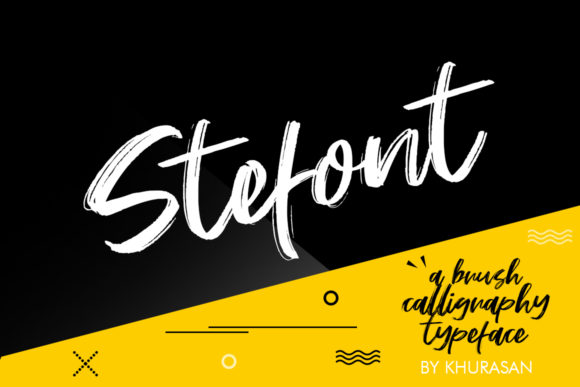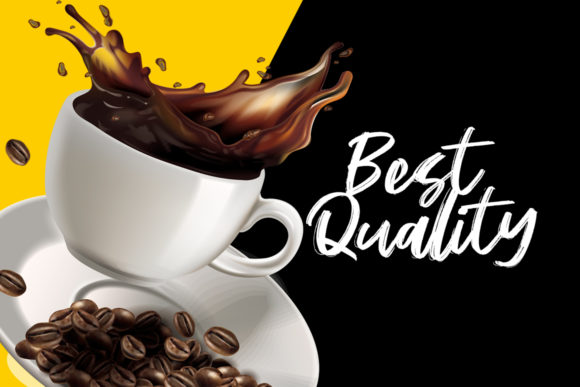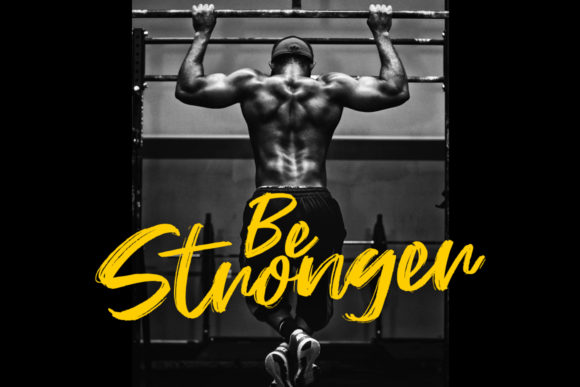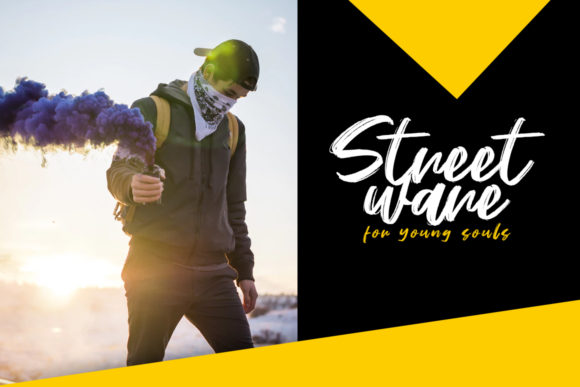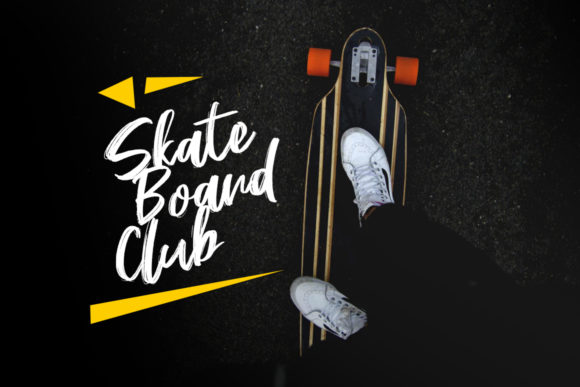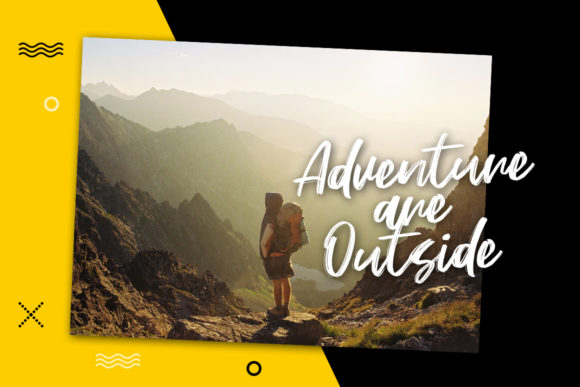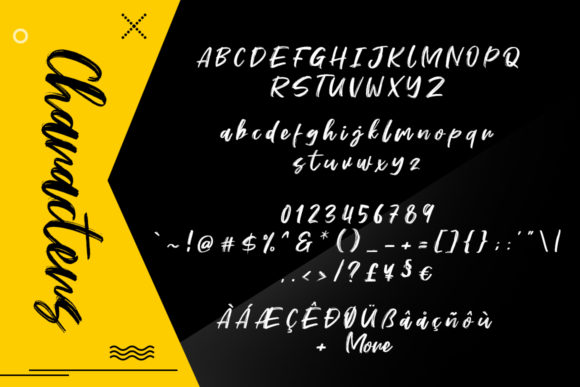
Stefont Font
About SteFont
Stefont is a fun handwritten font brush with an elegant and vintage feel. It will add a personal touch to any design project.